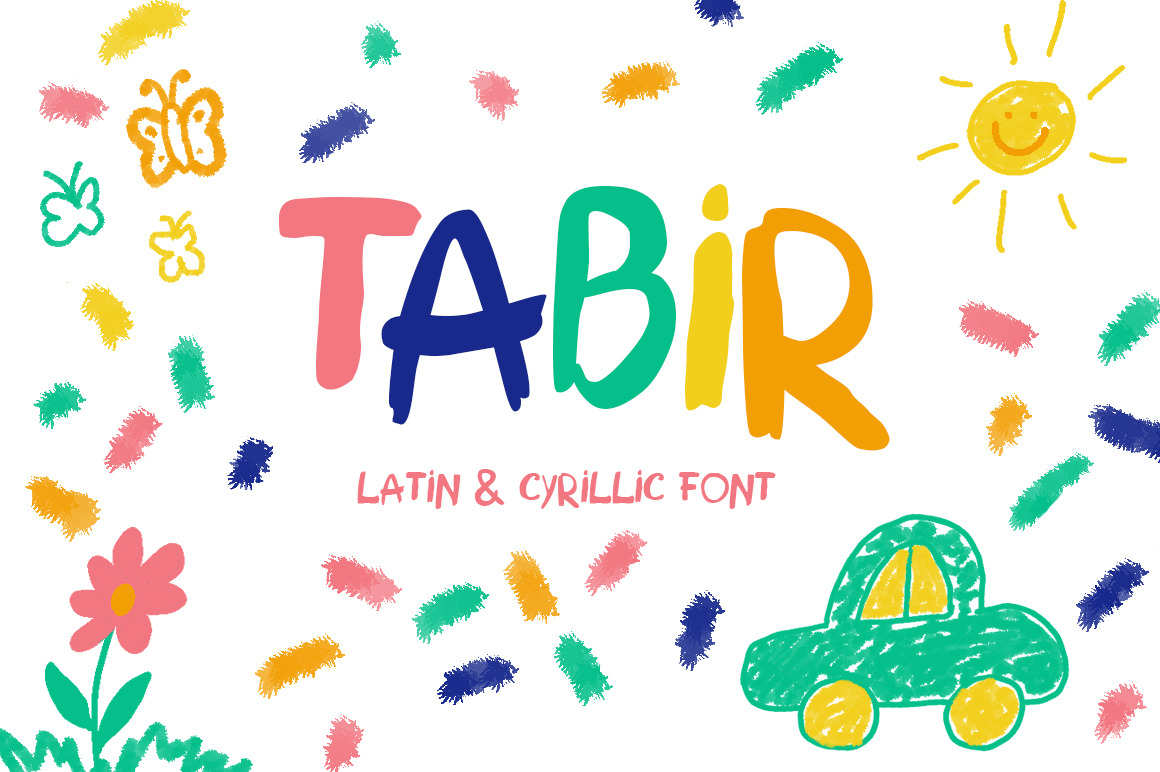
TABIR - kids style font
Tabir is fun and quirky handwritten font for your playful projects. It's based on my 8 years old cousine's handwriting. Perfect for immitation of children art.
- Uppercase latin and cyrillic letters